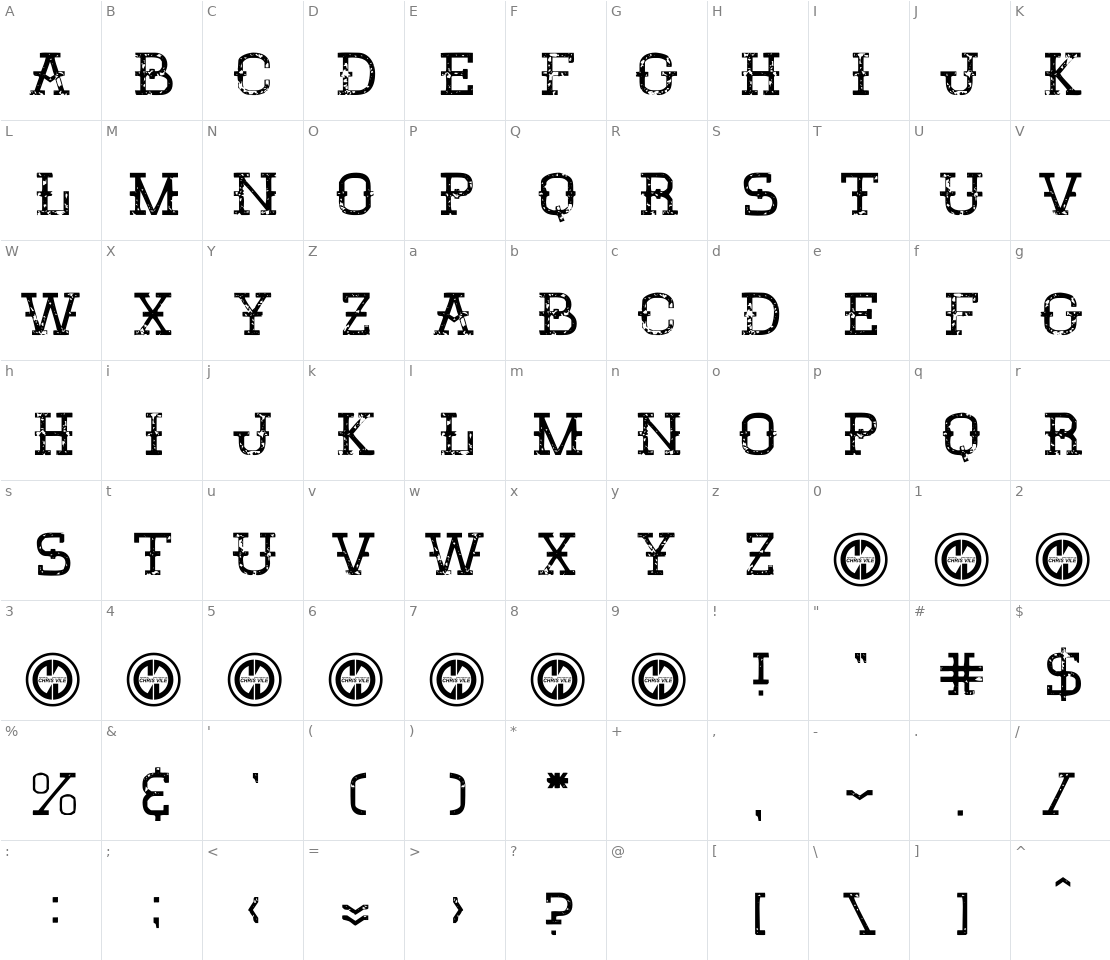
El Sancho
El Sancho is a rough, distressed slab serif from Chris Vile that looks like it was pulled off a sun-bleached wanted poster. The bold letterforms carry heavy weathering and grit, with enough character in the worn edges to feel authentically vintage rather than artificially aged. Built for headlines, posters, and Western-themed branding where you want type that feels like it's been sitting in the desert for a hundred years.